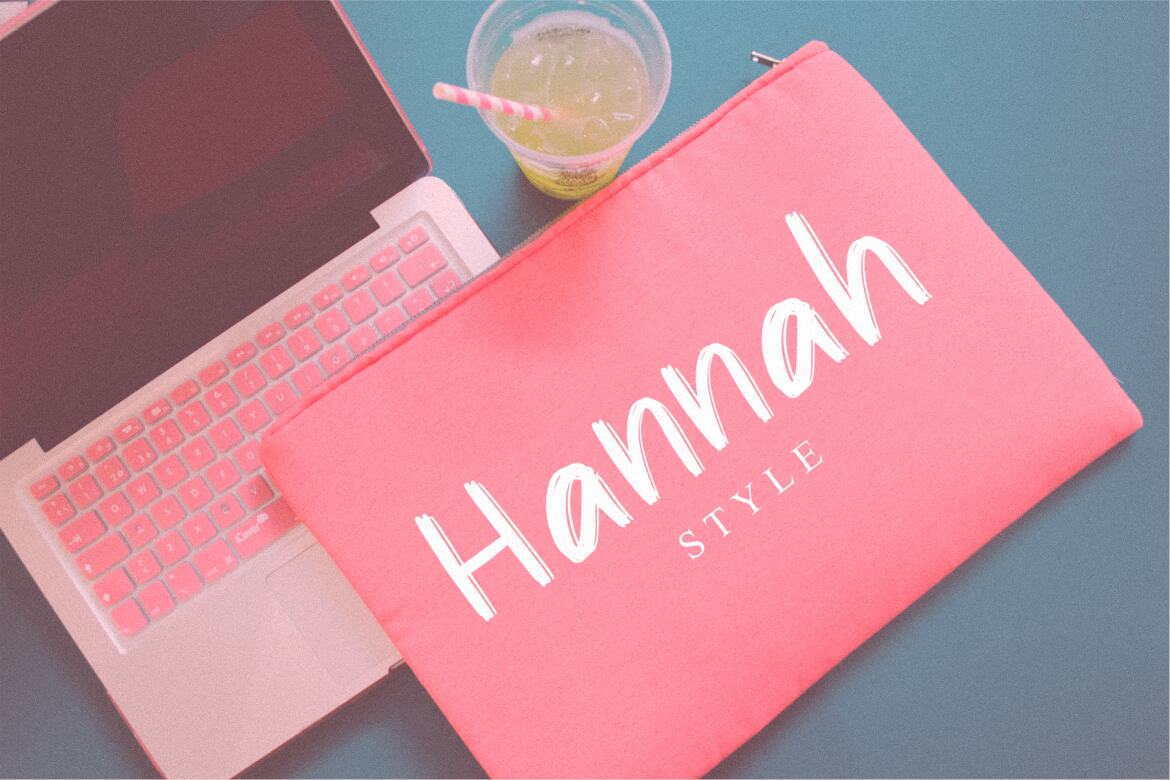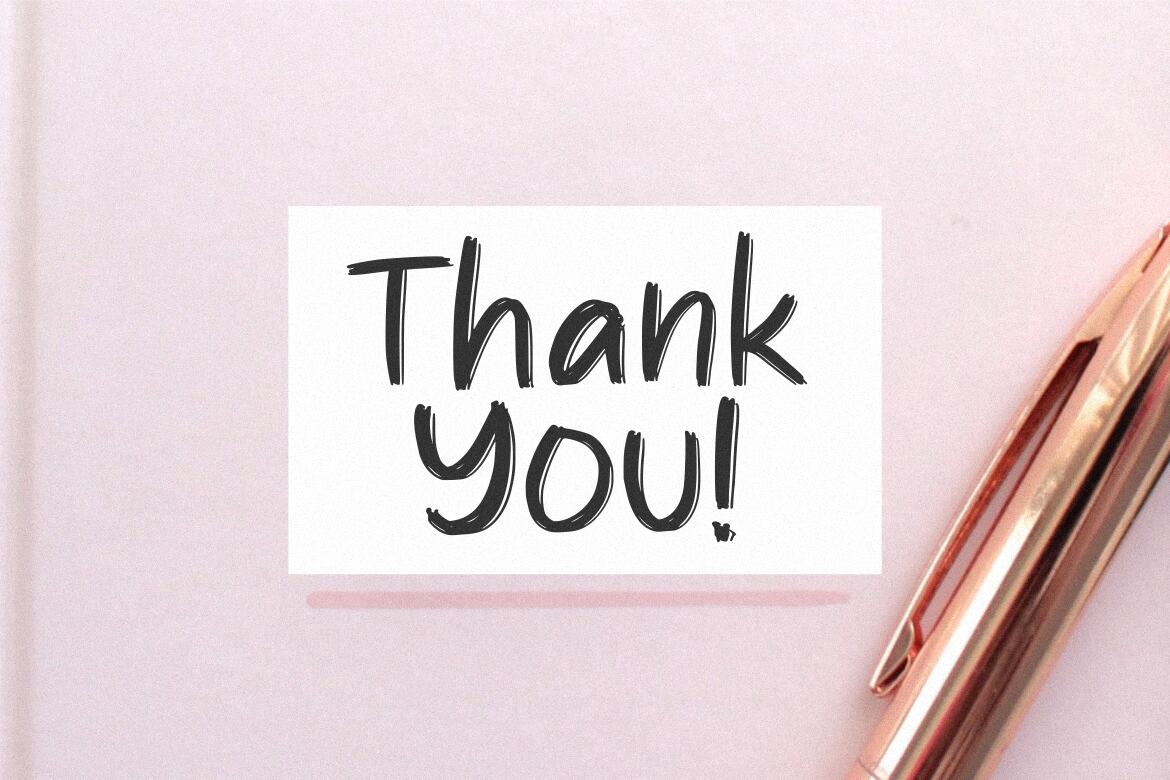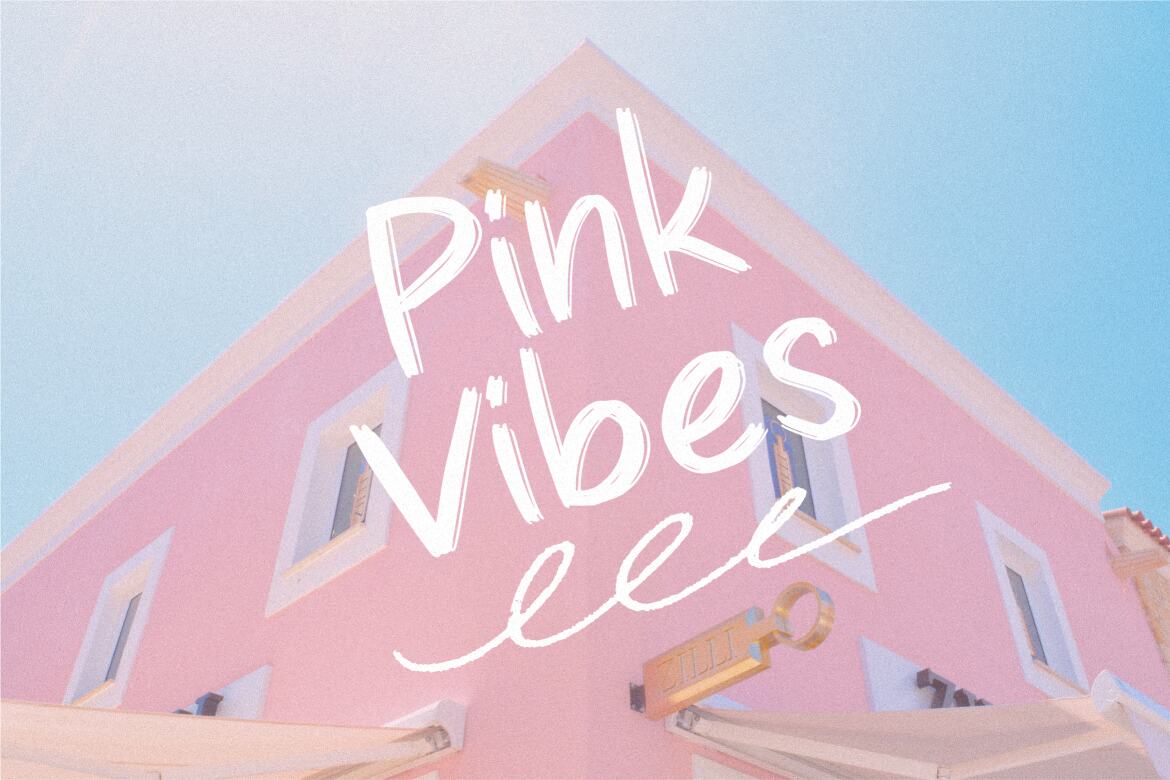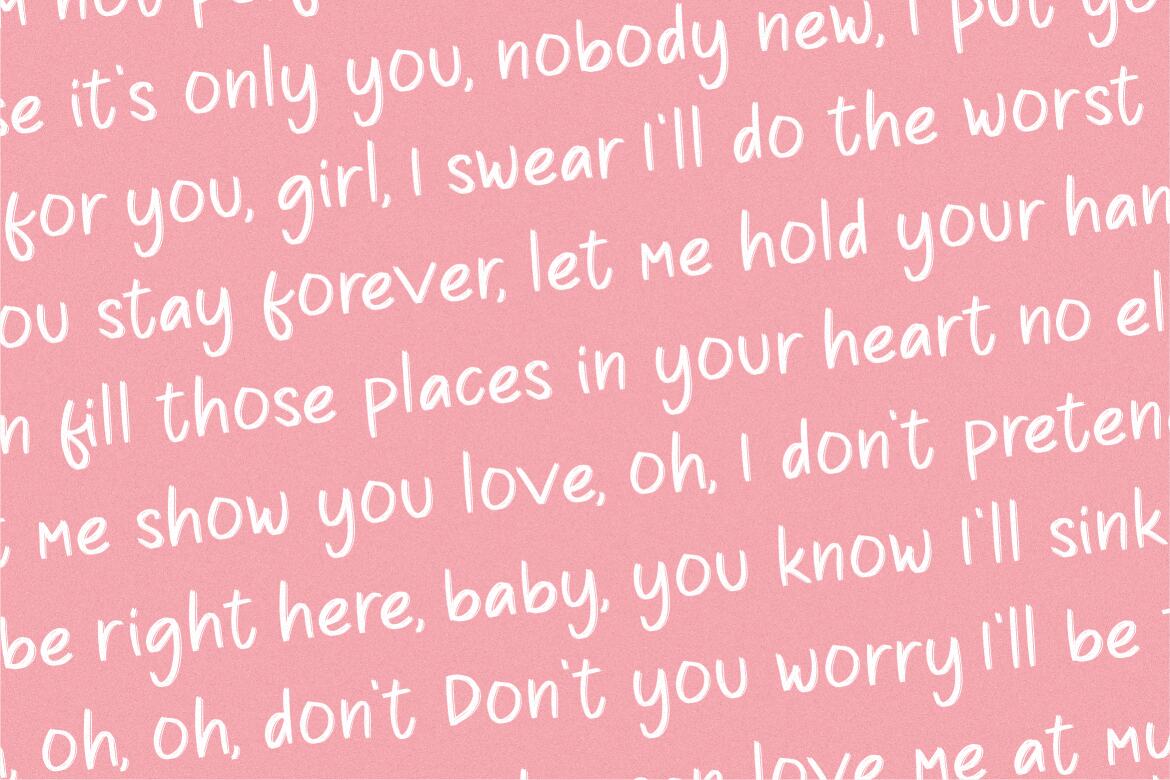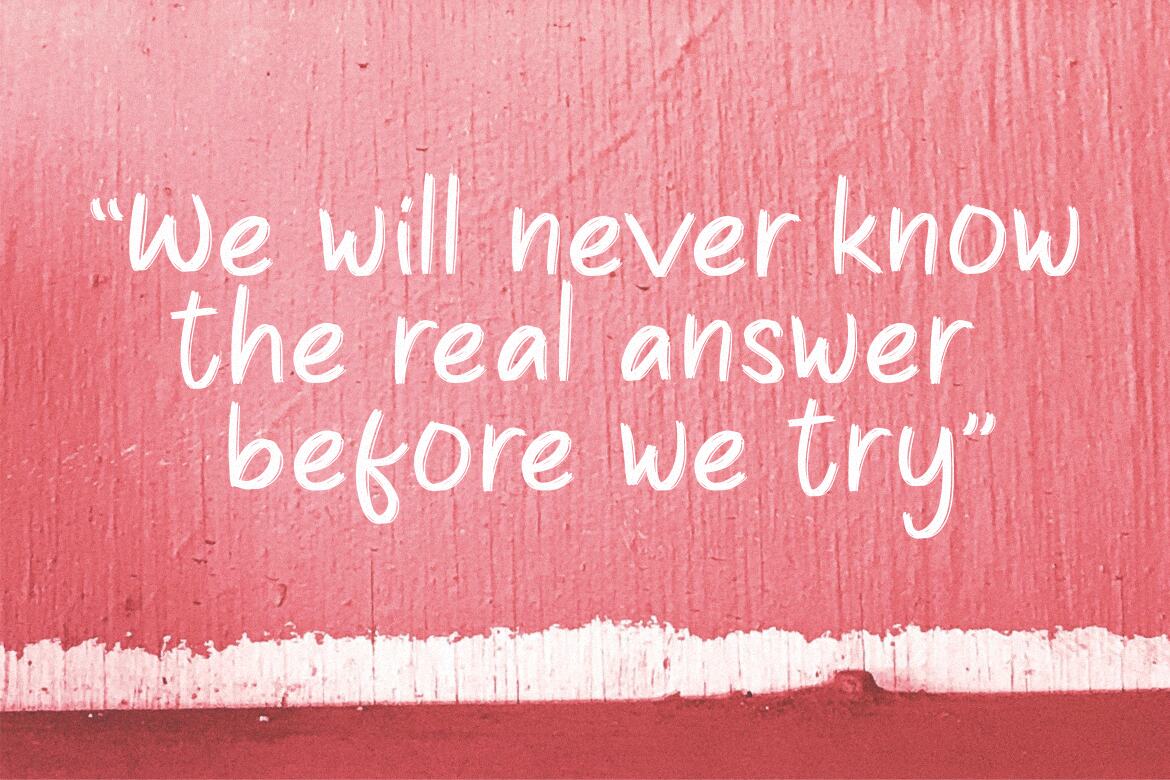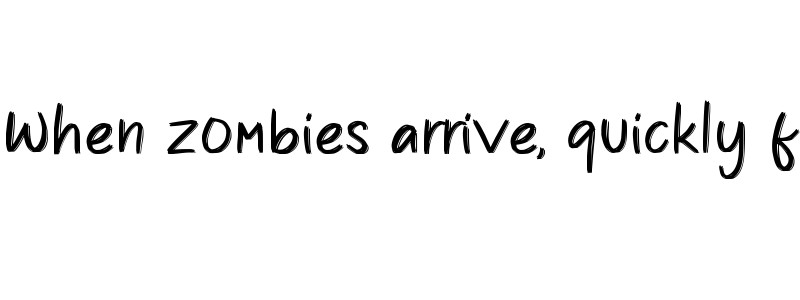
Pear Amigo
Proudly Present, Pear Amigo
Pear Amigo is a Fun Handwritten Font
Pear Amigo is perfect for product packaging, branding project, megazine, social media, wedding, or just used to express words above the background.